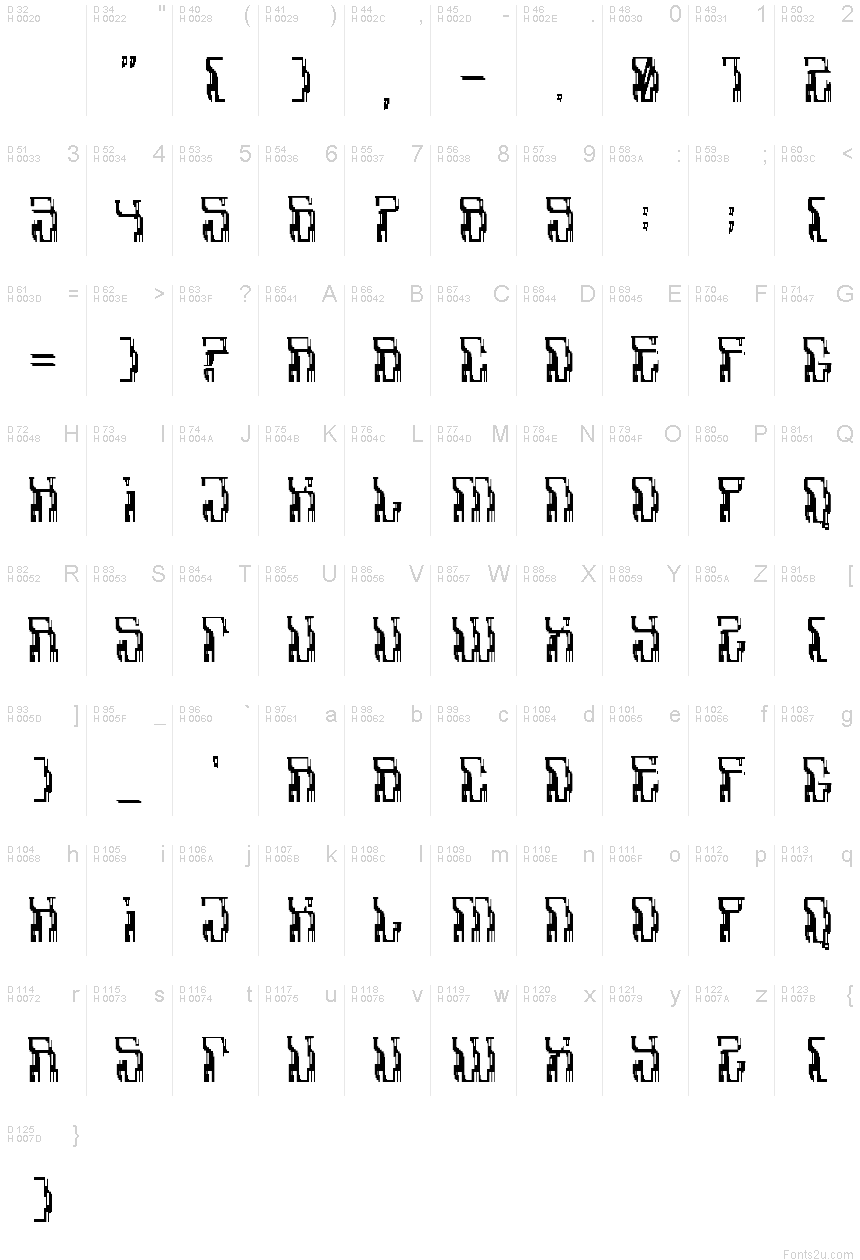
Aadavalus
Aadavalus font by Dieznyik is a free techno digital font that looks like a row of tiny walking machines marching across the screen. Each character is built from chunky, upright strokes and sharp stair‑step edges, so text feels mechanical, a bit glitchy, and oddly alive—like a retro terminal feeding data to a robot army. The tight, blocky rhythm creates a dense texture that pulls the eye in and refuses to blend into the background.
Using Aadavalus, short words snap into bold pictograms, making this free font a natural fit for sci‑fi logos, hacker zines, underground flyers, vaporwave artwork, and retro‑game interfaces. It shines on headers and wordmarks where you want pure attitude, not legibility at small sizes. Pair it with a plain monospaced sans for body copy, and keep Aadavalus big and spaced out to let those robotic silhouettes breathe.